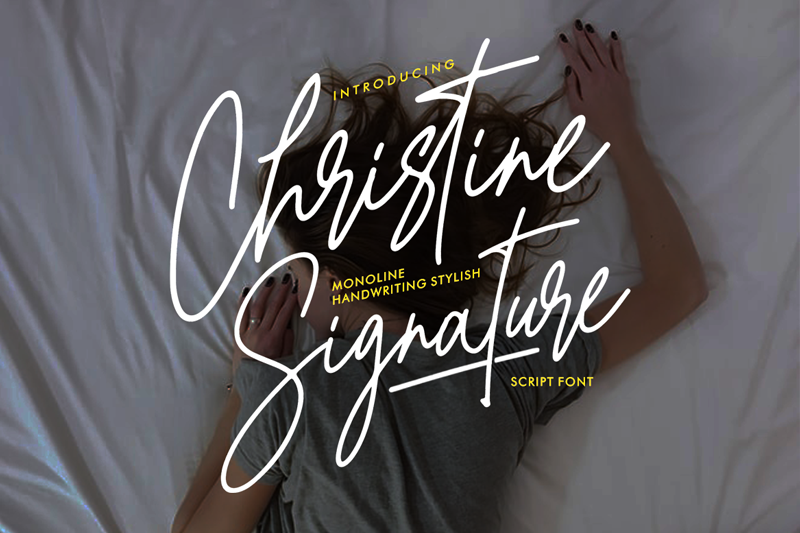
Preview and download Christine Signature Font. Created by Wasisme Studio in Script Handwritten styles with Free for personal use license.
Font name: | Christine Signature |
Author: | Wasisme Studio |
Christine Signature Script Font is perfect for branding projects, logo, wedding designs and etc. NOTE: This demo font is for PERSONAL USE ONLY! But any donation are very appreciated. Paypal account for donation : https://www.paypal.me/wasisme If you need an extended license or corporate license, please contact me at wasismestudio@gmail.com Please visit our store for more great fonts : https://www.creativefabrica.com/designer/wasisme-studio And follow our instagram for update : https://www.instagram.com/wasisme Thank you. |